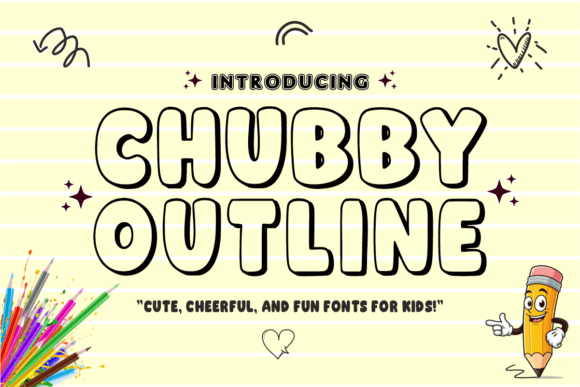
Introducing Chubby Outline Font: The Ultimate Choice for Fun and Playful Designs
In the world of typography, fonts play a crucial role in conveying the tone and personality of a design. When it comes to creating fun, playful, and engaging content, especially for children, the right font can make all the difference. This is where the Chubby Outline Font comes into play – a modern, chubby outline cartoon font that is sure to capture the hearts of designers, parents, and kids alike.
Key Features of Chubby Outline Font
- Uppercase Letters: The Chubby Outline font consists of only uppercase letters, ensuring a bold and eye-catching appearance.
- Cute and Unique Characters: Each character in the font is carefully designed to be cute, unique, and sweet, making it easy to recognize and remember.
- Modern Cartoon Style: The font boasts a modern cartoon style that is perfect for creating fun and engaging designs for children.
Endless Design Possibilities with Chubby Outline Font
The versatility of the Chubby Outline Font makes it an excellent choice for a wide range of design projects. Here are some ideas to get you started:
- Children’s Craft Designs: Create engaging and interactive craft designs for kids, including coloring books, activity sheets, and more.
- Sublimated T-Shirts: Design fun and playful t-shirts for kids using the Chubby Outline Font, perfect for casual wear or as a gift.
- Mugs and Tote Bags: Add a personal touch to mugs and tote bags with custom designs featuring the Chubby Outline Font.
- Animations and Comic Titles: Use the font to create eye-catching titles for animations, comics, and cartoons.
- Children’s Coloring Books: Design engaging and interactive coloring books for kids, perfect for creative expression and relaxation.
- Children’s Needs: Create materials for children, such as posters, flyers, and brochures, that are both fun and educational.
Tips for Designing with Chubby Outline Font
To get the most out of the Chubby Outline Font, here are some design tips to keep in mind:
- Keep it Simple: While the font is playful, it’s essential to balance it with simple design elements to avoid visual overload.
- Experiment with Colors: The Chubby Outline Font looks great with bright and bold colors, so don’t be afraid to experiment and find the perfect combination.
- Mix and Match: Combine the Chubby Outline Font with other fonts to create a unique and visually appealing design.
The Benefits of Using Chubby Outline Font
The Chubby Outline Font offers several benefits that make it an excellent choice for designers and non-designers alike:
- Easy to Read: The font is designed to be easy to read, even for young children.
- Highly Versatile: The font can be used for a wide range of design projects, from digital to print.
- Unique and Playful: The Chubby Outline Font adds a touch of personality and whimsy to any design.
In conclusion, the Chubby Outline Font is an excellent choice for designers looking to create fun, playful, and engaging content for children. With its modern cartoon style, cute and unique characters, and versatility, this font is sure to become a favorite in any designer’s toolkit. So, pour your imagination into your designs with the Chubby Outline Font and create something truly special!